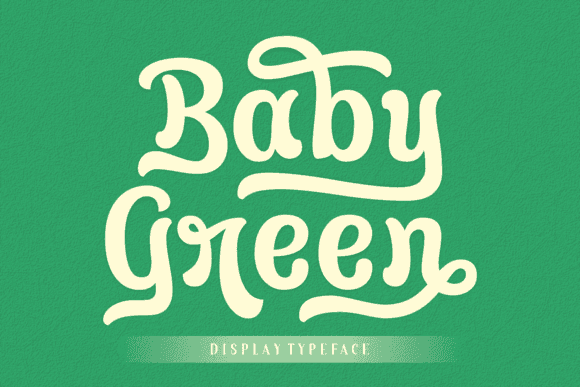
Baby Green Font for Crafting, Logos and Print Projects
Baby Green is a cheerful and approachable font crafted for crafters, designers, and brand builders. With soft curves and clean alignment, it balances fun and professionalism across various design applications.
This font is ideal for logos, labels, and personalized products, delivering high readability and character in both digital and printed formats. Whether you're launching a product line or designing heartfelt gifts, Baby Green fits the brief.
- DIY crafters and design hobbyists
- Logo and branding designers
- Small business owners and Etsy sellers
- Printable product creators
- Teachers, parents, and content creators
- Logos and business branding kits
- Custom mugs, tote bags, and packaging
- Printable wall art and signage
- Product labels and stickers
- Greeting cards and educational resources
- Friendly yet professional aesthetic
- Easy to read in logos and print materials
- Works across craft and business projects
- Perfect for both playful and polished designs
Q: What kind of font is Baby Green?
A: Baby Green is a rounded, casual display font ideal for crafting, branding, and print design projects.
Q: Is this suitable for printed logos and packaging?
A: Yes. Baby Green is designed for clarity and balance, making it ideal for printed branding materials.